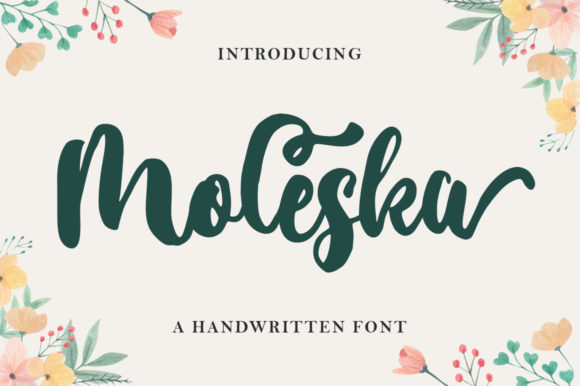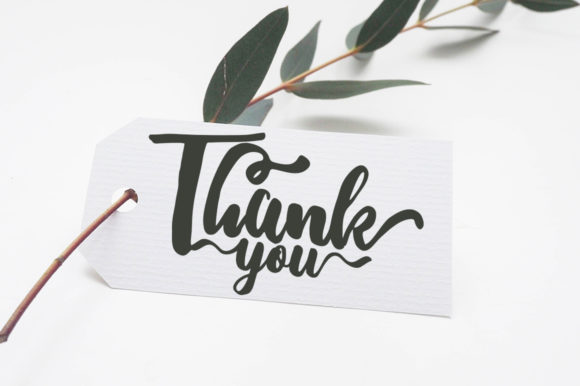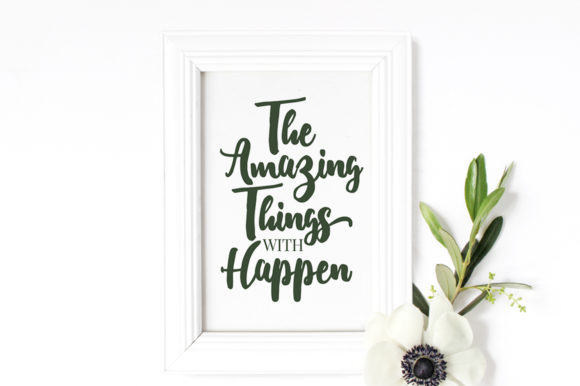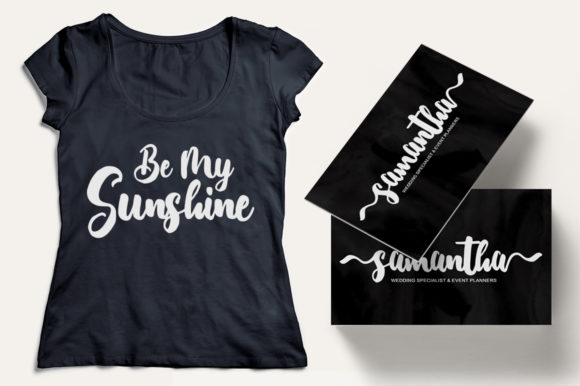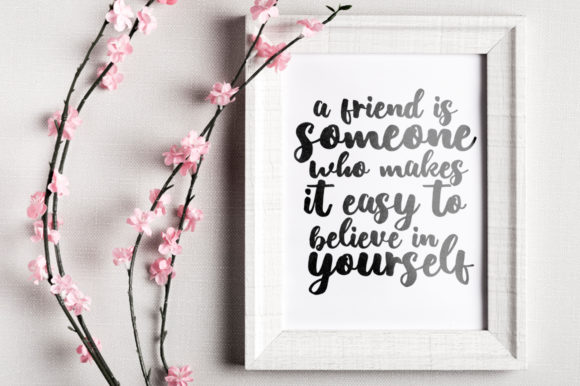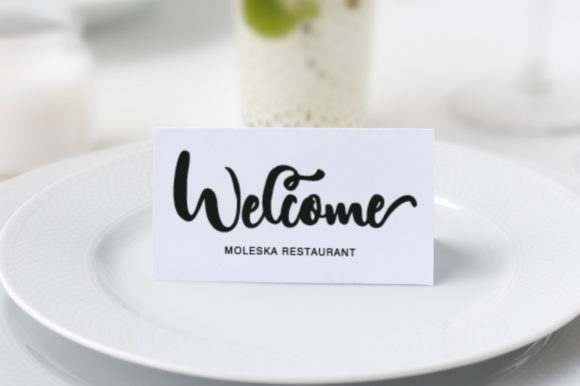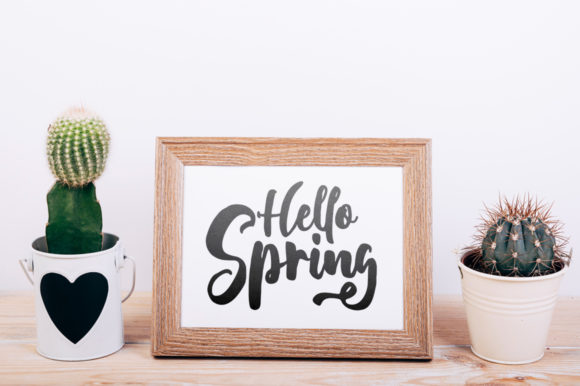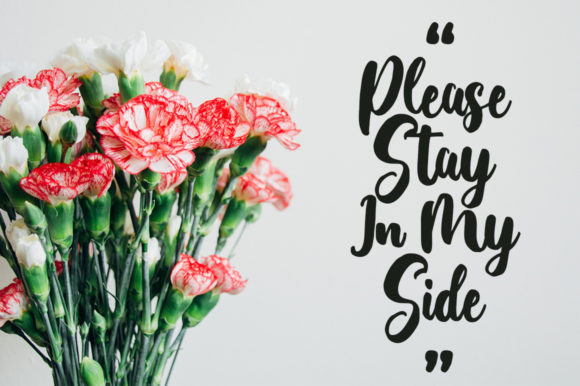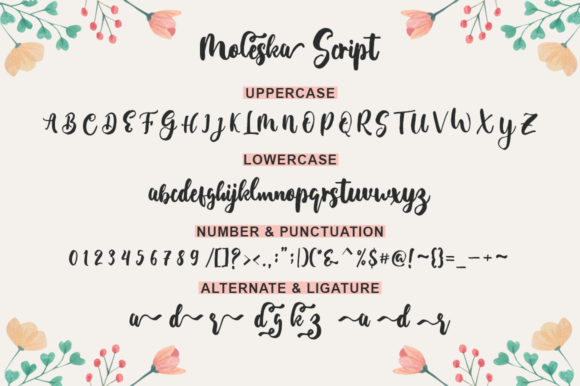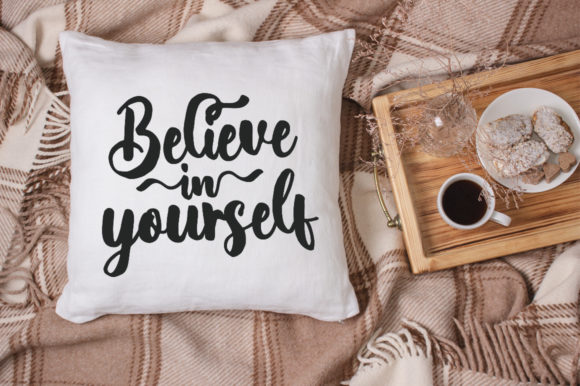
Moleska Font
About Moleska Font
Moleska is a playful handwritten font. It features gorgeous swashes and ligatures that make this script incredibly versatile. Whether you’re looking for fonts for Instagram or calligraphy scripts for DIY projects, Moleska will turn any creative idea into a true piece of art!